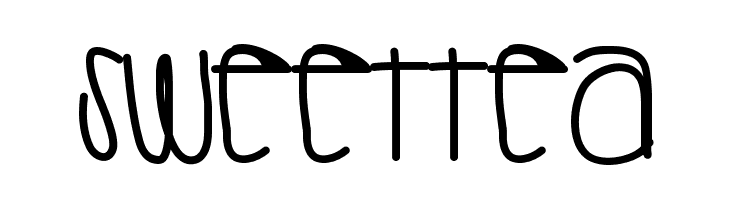
( Fonts by Alex Tomlinson - Skyhaven Fonts - shfonts.com )
A playful, hand-drawn font with tall, narrow letterforms and a whimsical style.
( Fonts by Steve Cloutier - www.cloutierfontes.ca )
A playful, hand-drawn font with a whimsical and quirky style.
( Fonts by Khrys Bosland )
A whimsical, hand-drawn decorative font with intricate patterns.
( www.pixelfailure.com/ )
A playful, casual handwritten font with smooth, flowing lines and slightly irregular shapes.
( Fonts by Vanessa Bays - bythebutterfly.com )
A playful, hand-drawn font with tall, narrow letters and whimsical doodles.
( Fonts by Khrys Bosland )
A decorative font with ribbon-like embellishments on each character, perfect for festive designs.
( Fonts by Des Gomez )
A playful, handwritten font with a whimsical and friendly style.
( Fonts by www.dcoxy.com )
A playful, hand-drawn font with a whimsical and friendly style.